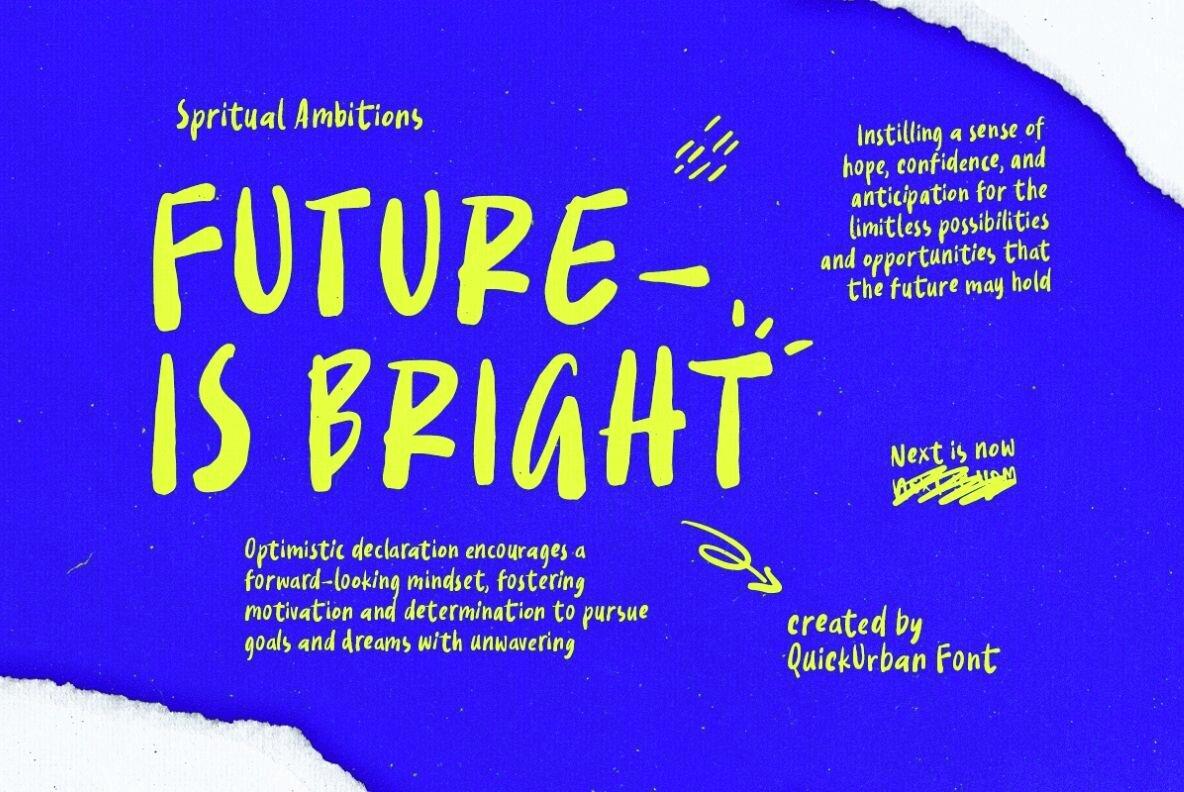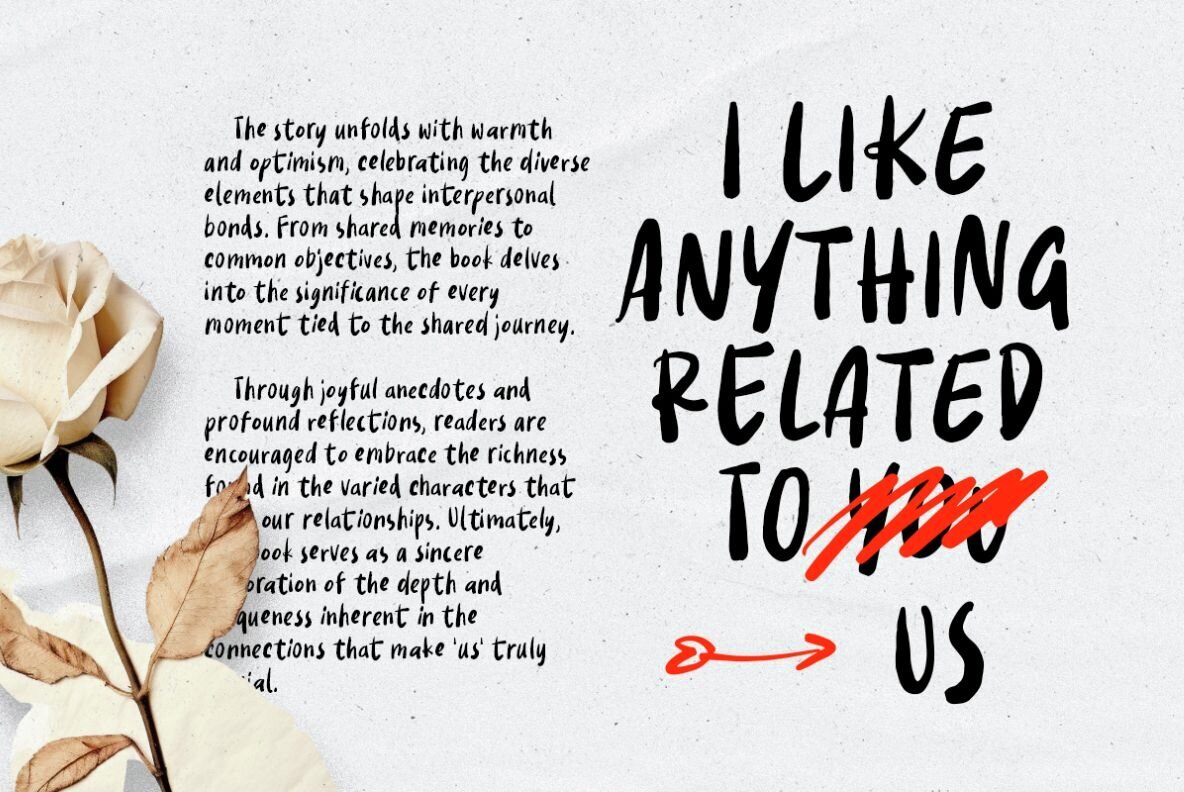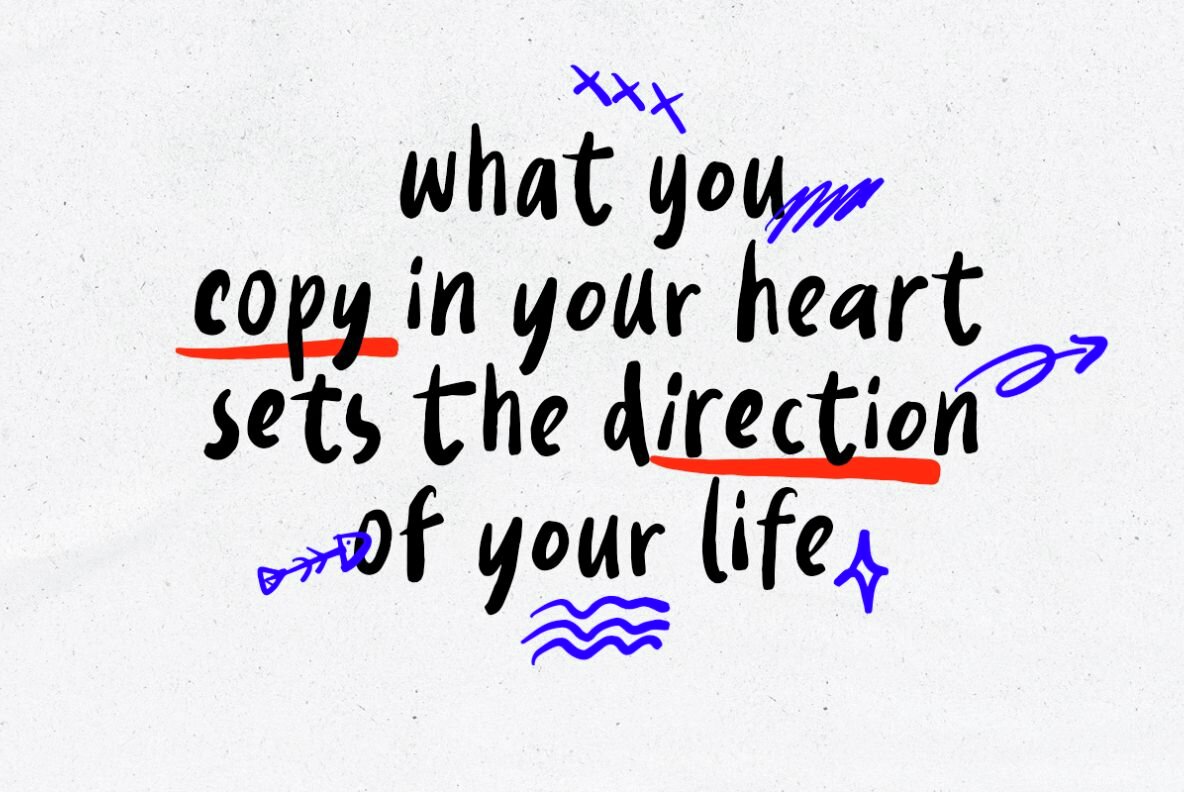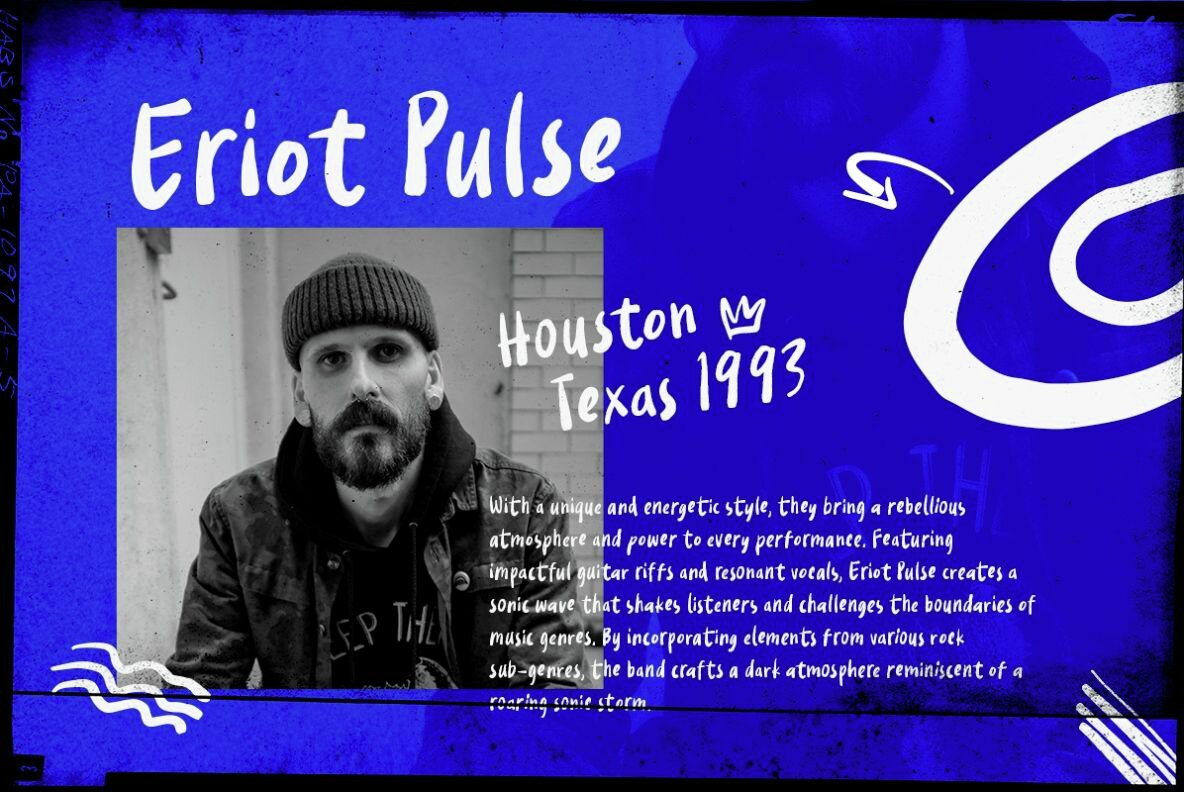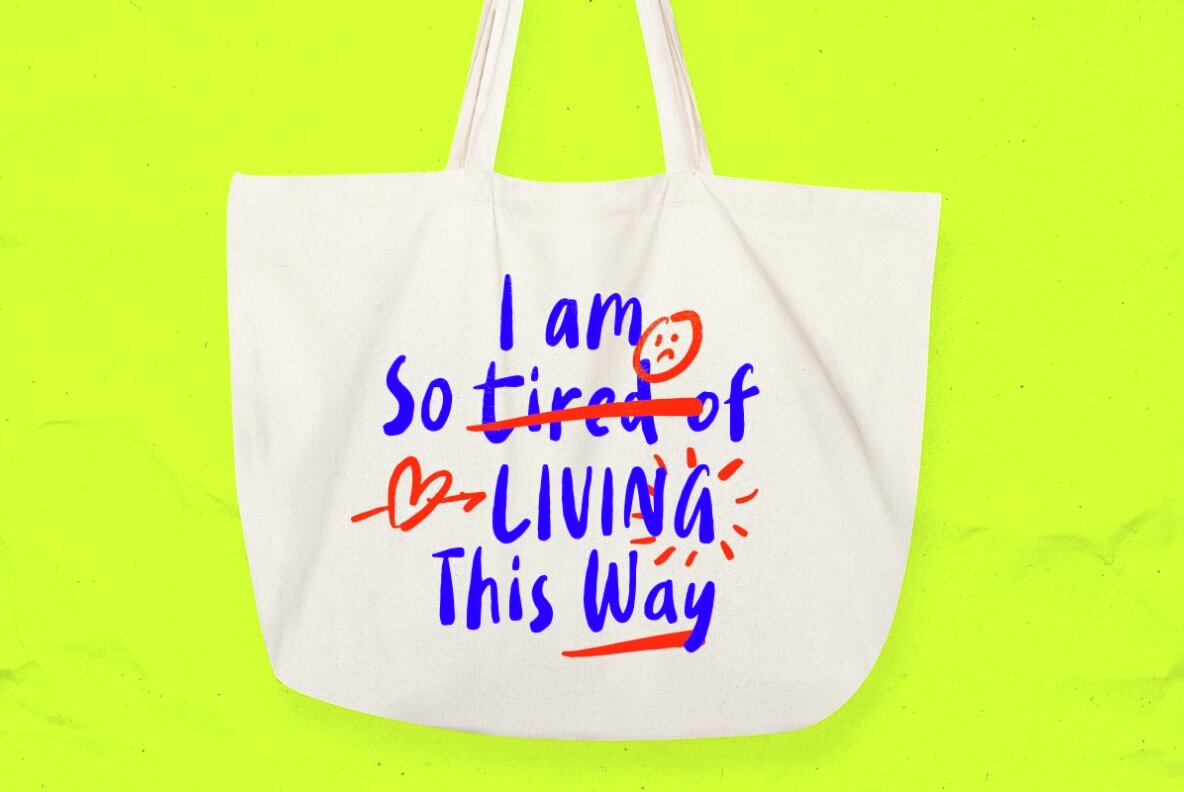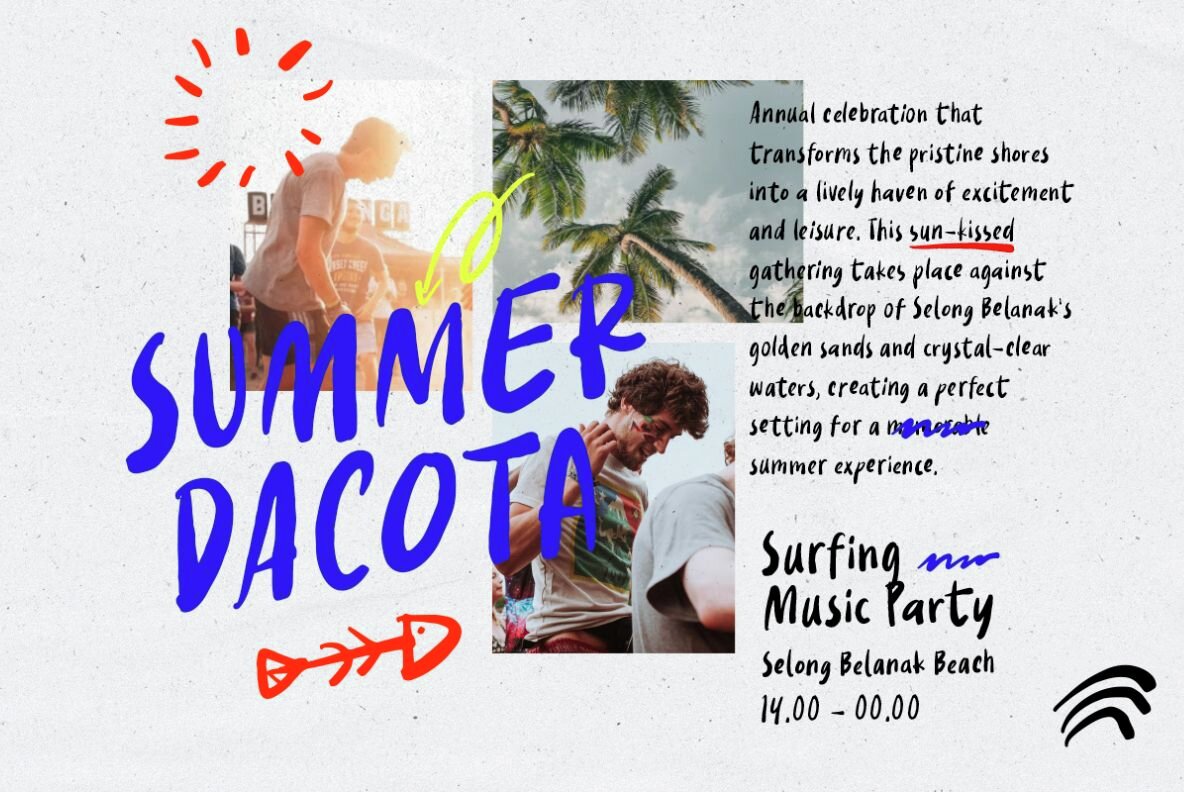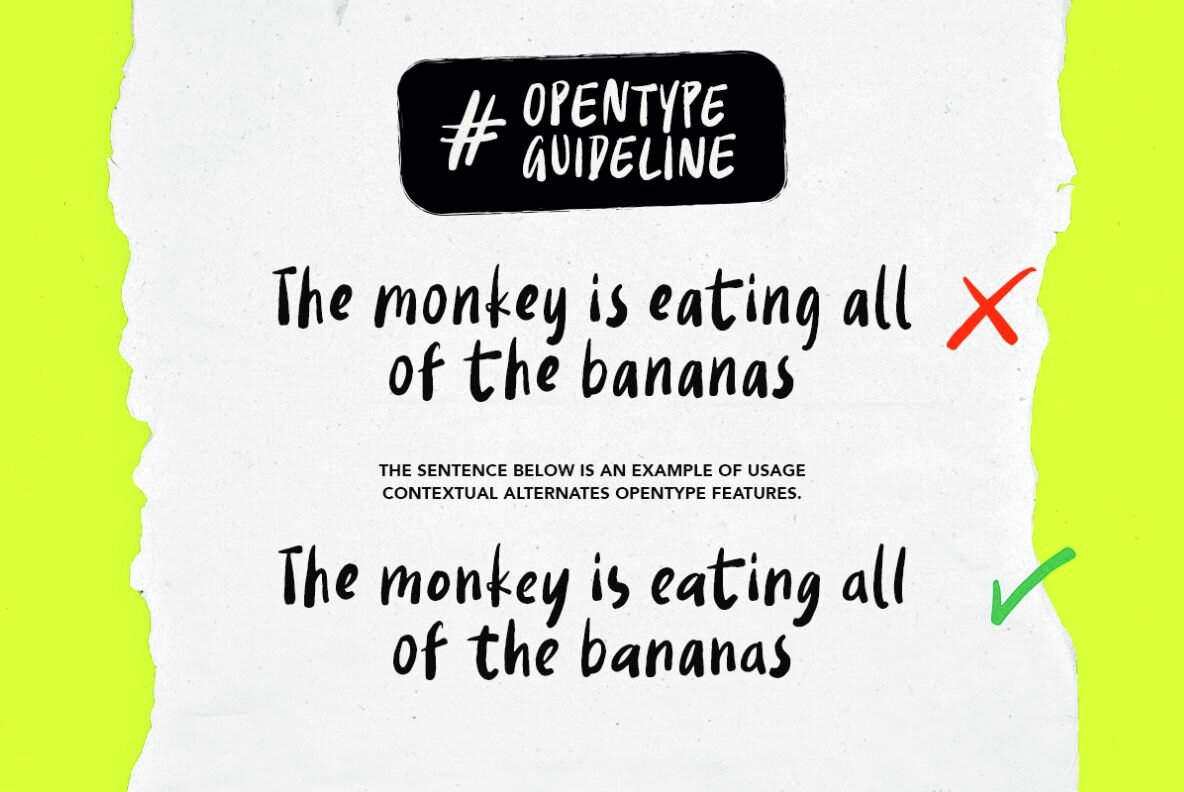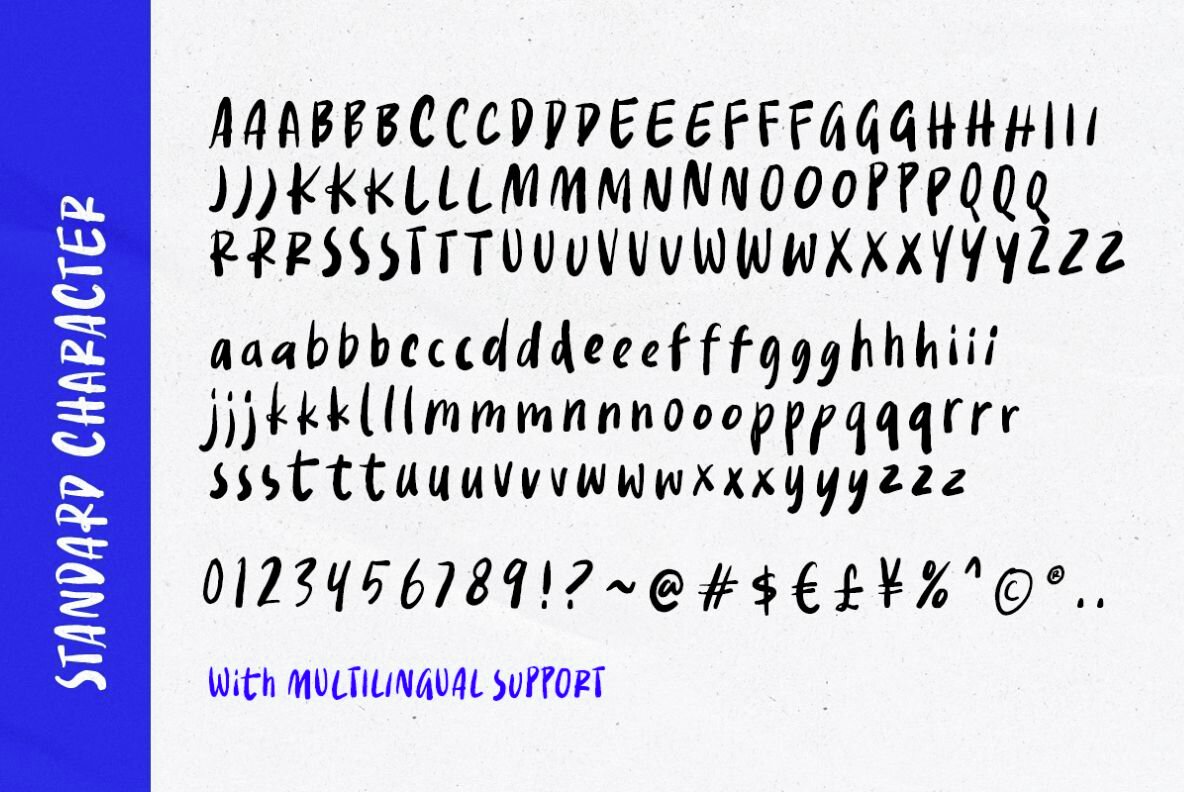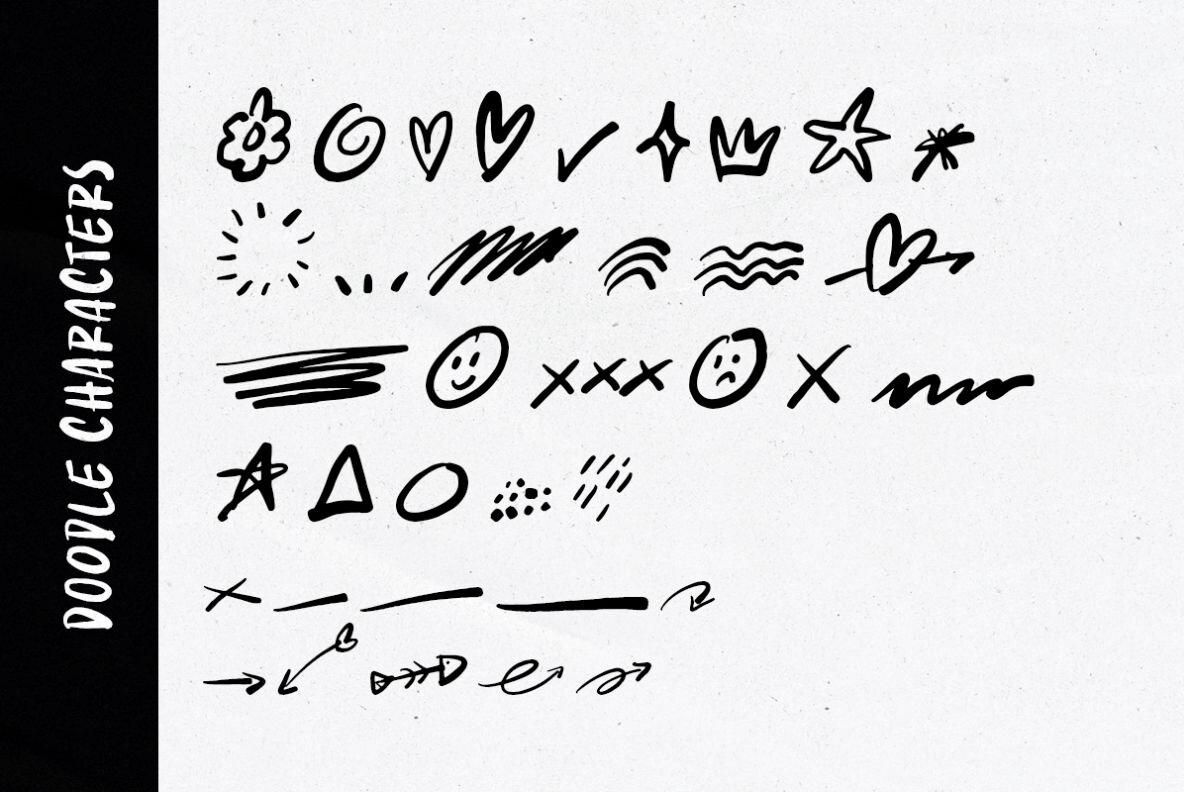
Quick Marker Font
Quick Marker Regular
Quick Marker Doodle
Quick Marker is a bold handwritten font that offers a unique style to your designs. Featuring three sets of each character, it allows for a more natural handwritten look by utilizing Contextual Alternates in OpenType features in Adobe Photoshop and Illustrator. Just activate this feature to see your characters change automatically, enhancing the authentic handwriting effect in your projects.
Additionally, Quick Marker includes doodle elements that can be accessed by typing A-Z and a-z characters. To use them, select the "Quick Marker Doodle" font. This font is versatile, making it perfect for branding, street art, quotes, taglines, and more. Plus, it supports multiple languages, broadening its usability across different regions and audiences.